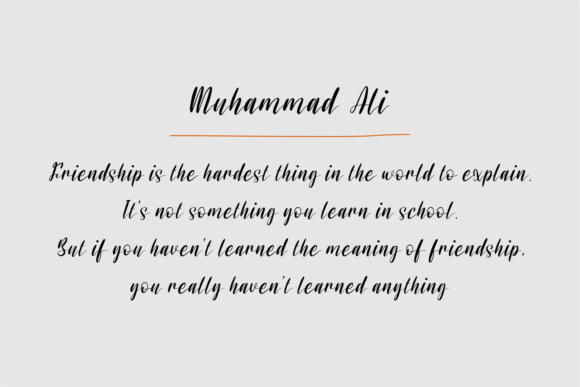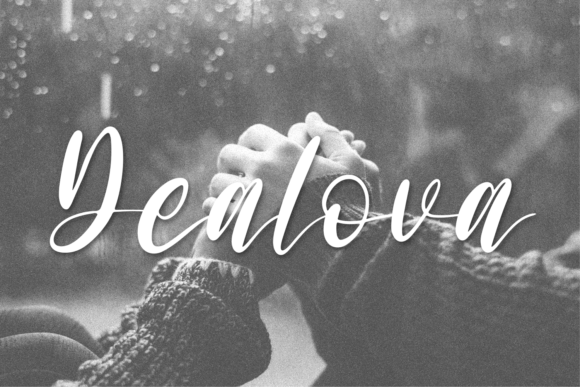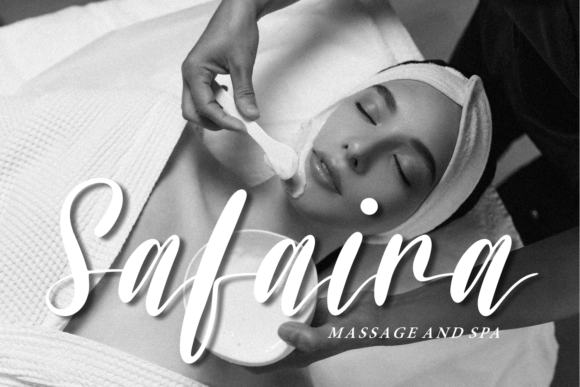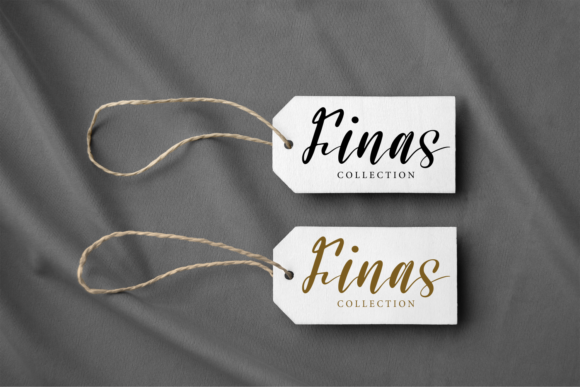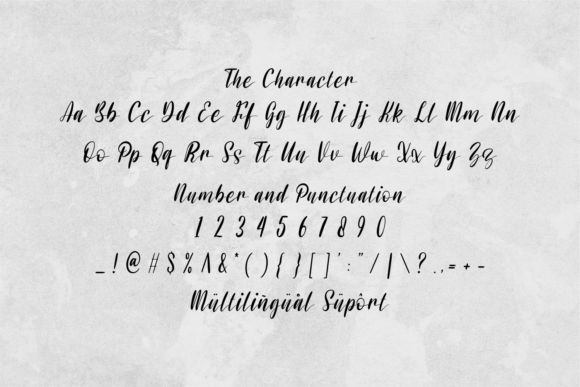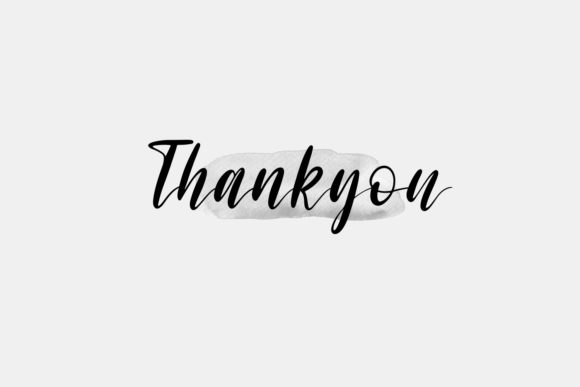
Introduction to Bagiles Font
Bagiles is a magical script font carefully created with a touch of elegance.
Key Features of Bagiles Font
Why Choose Bagiles Font?
Bagiles Font offers exceptional quality and versatility, making it a valuable addition to your design toolkit. Whether you’re creating for personal projects or commercial use, Bagiles Font delivers professional results.